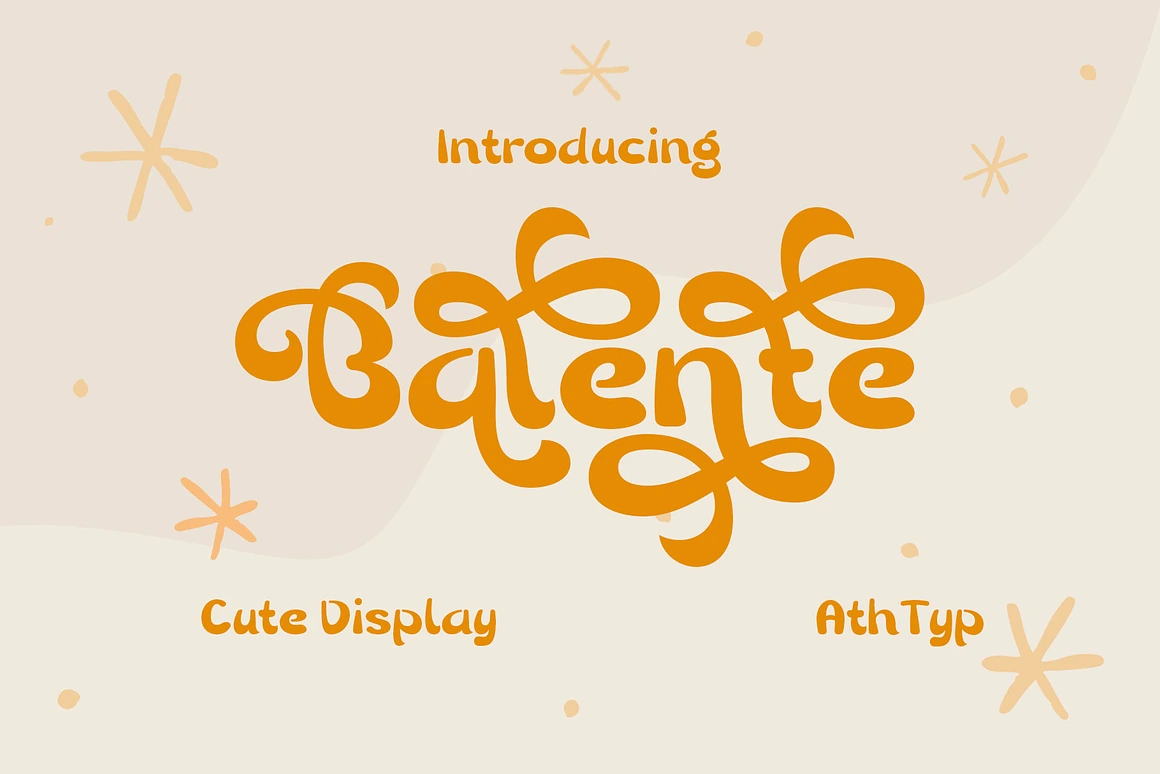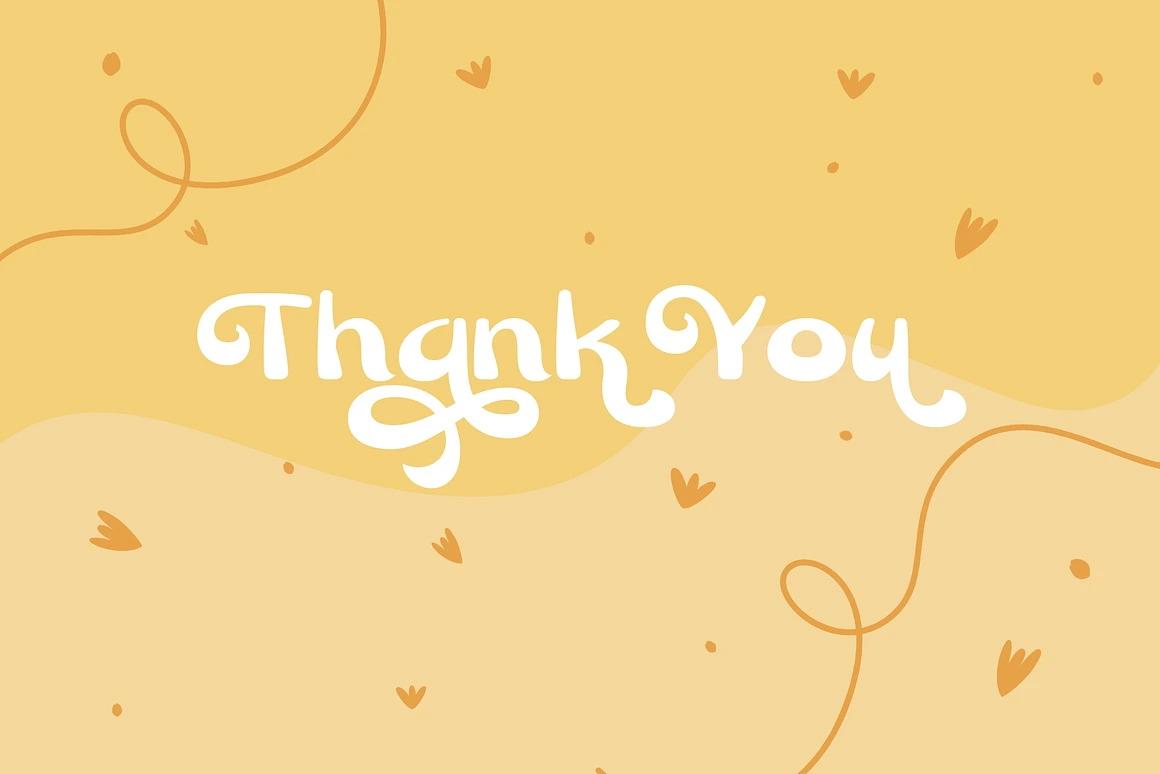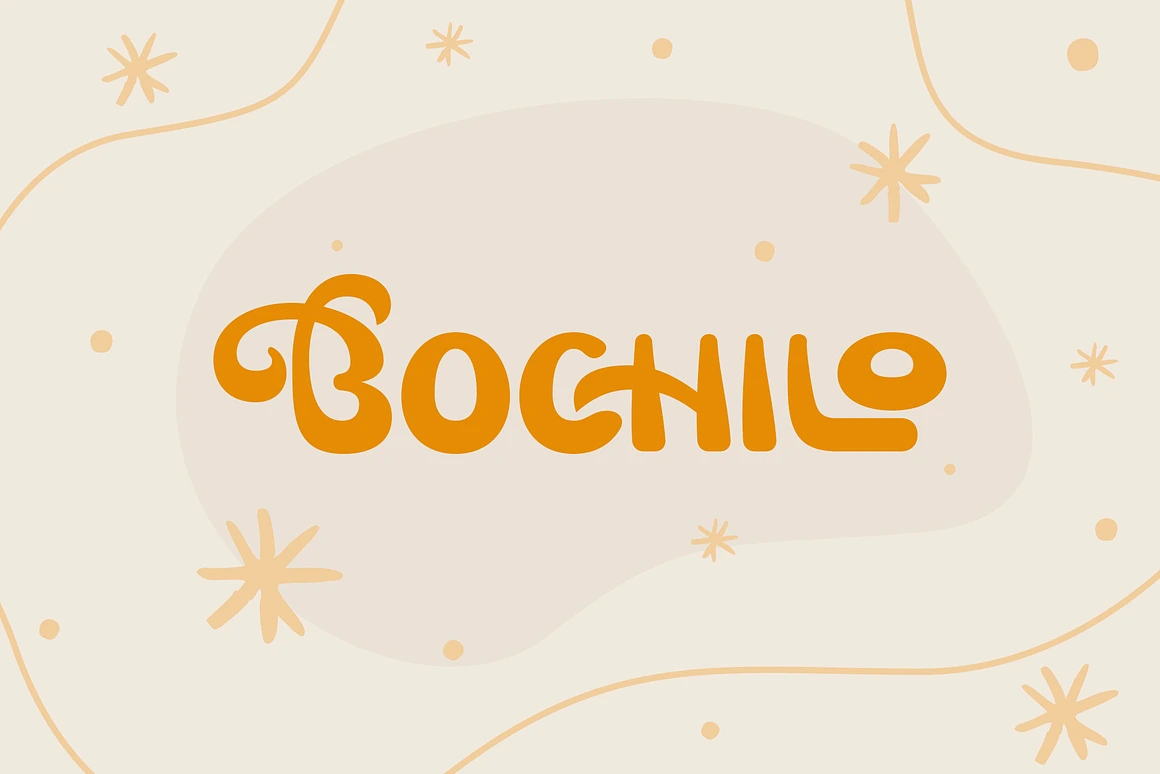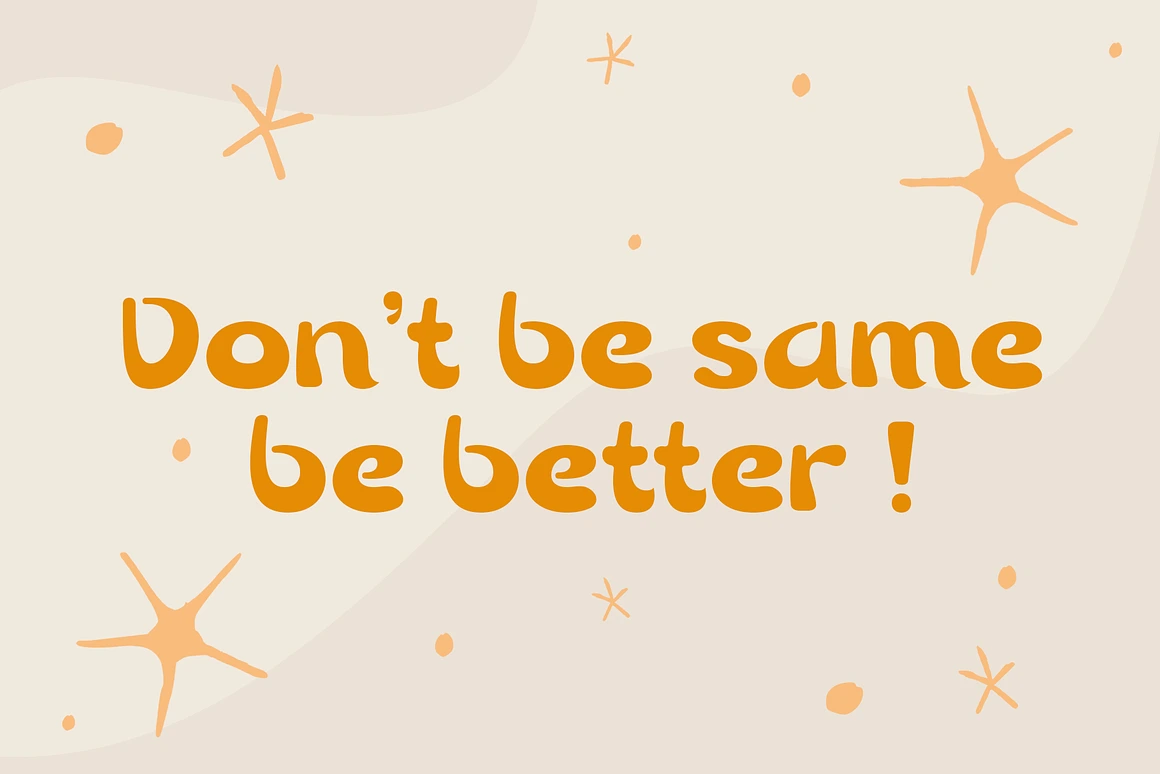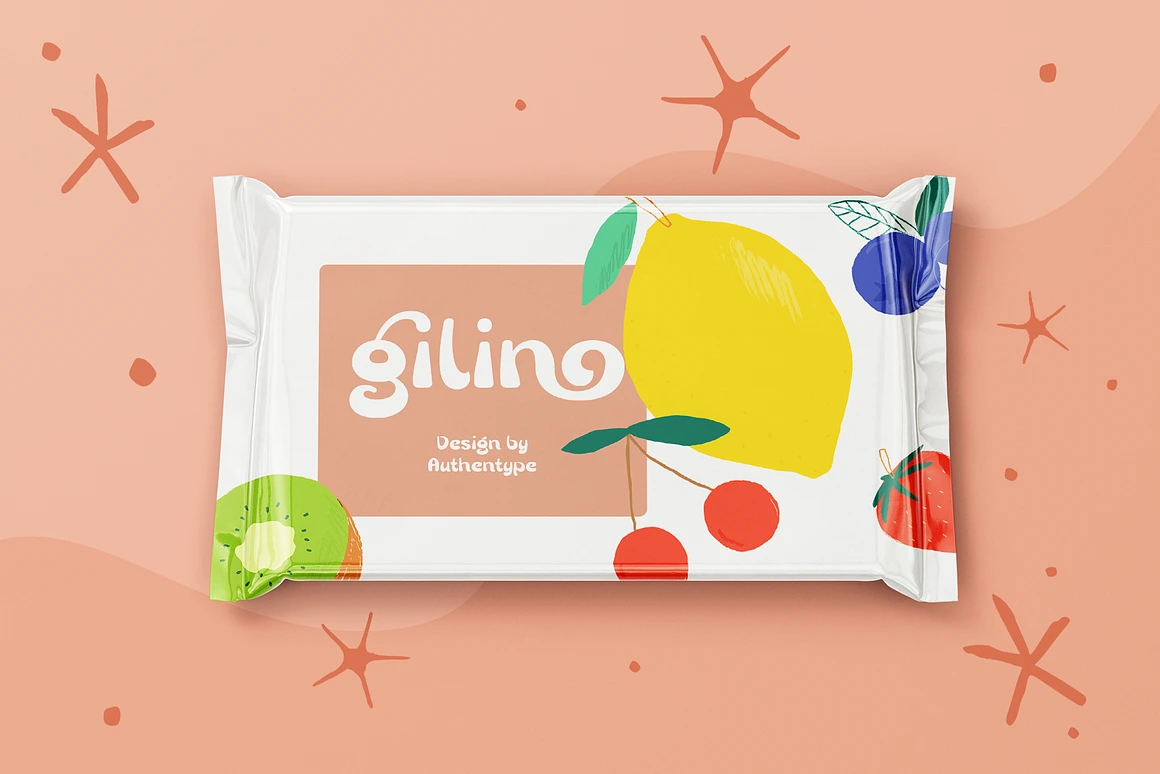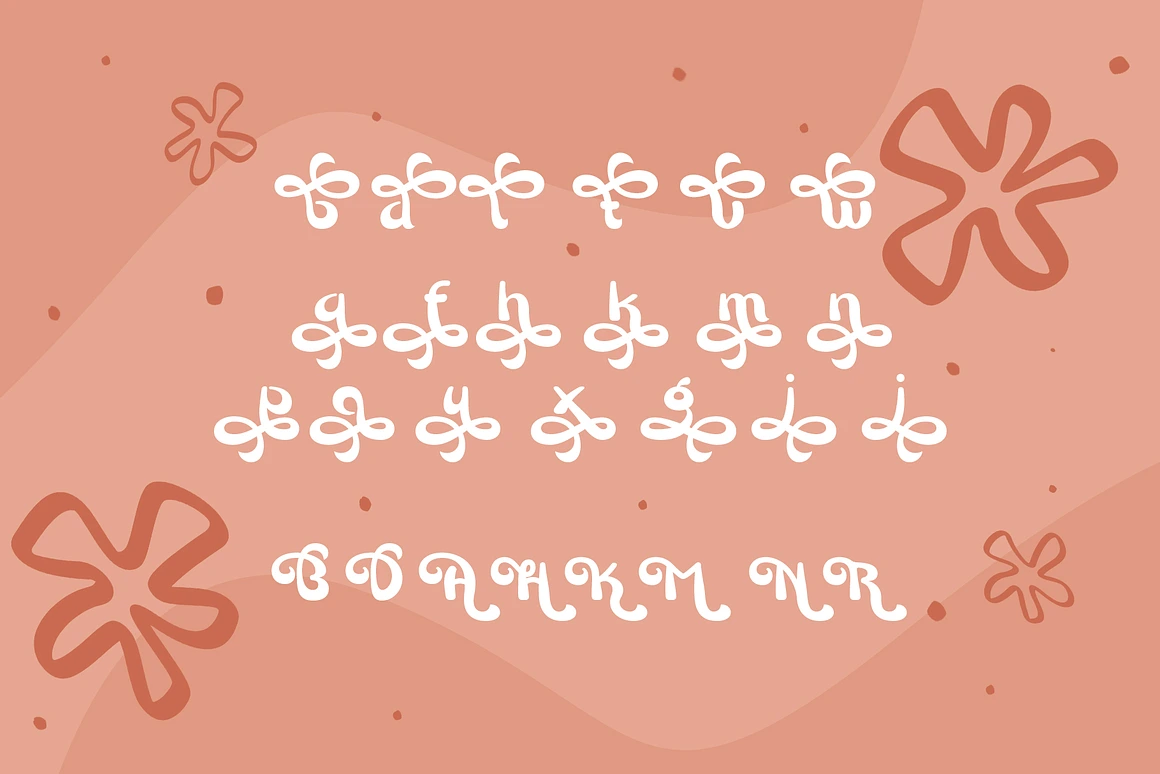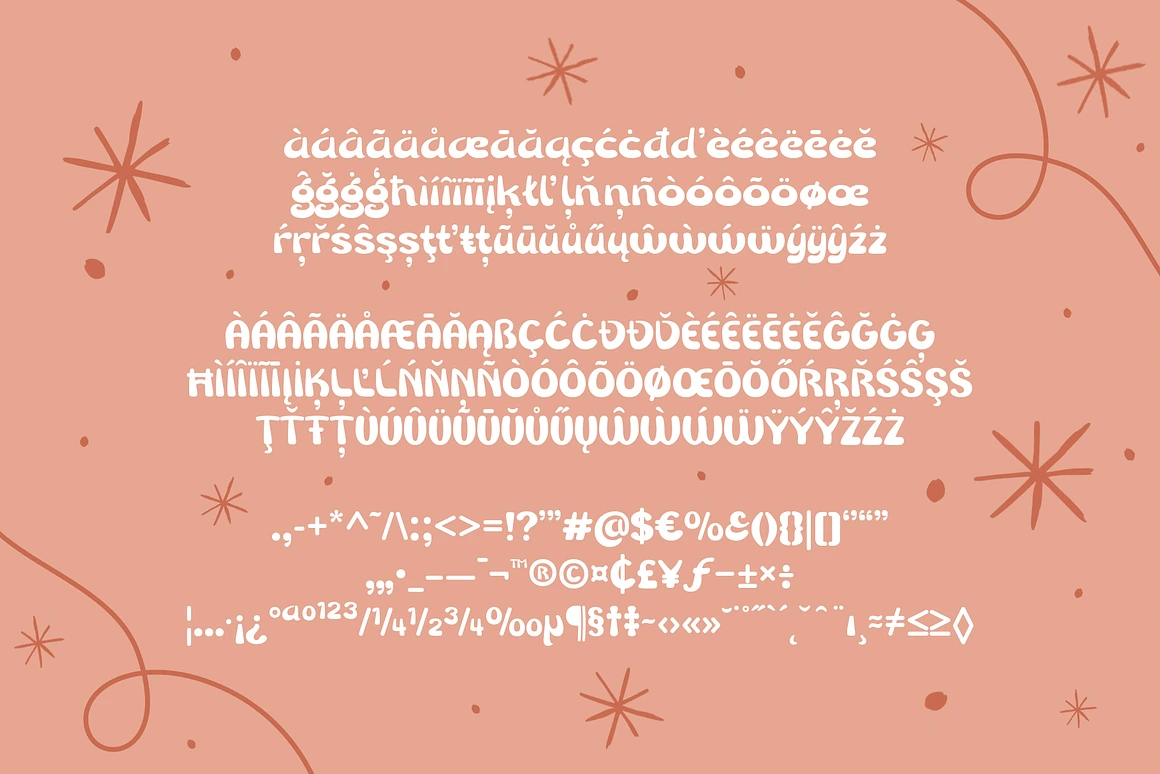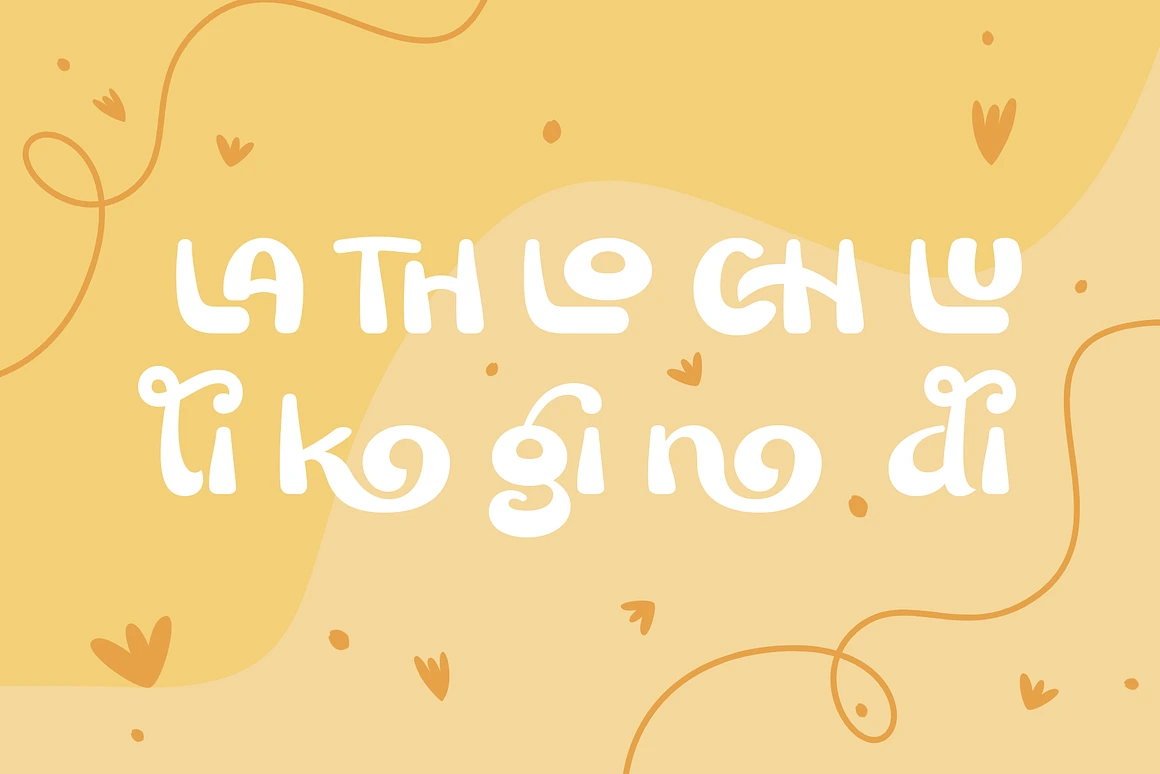
Balente Font Beautiful and Cute
Balente contains 1 style.
Balente, a captivating display font that effortlessly embodies a beautiful and cute nuance. With its delicate curves and charming details, Balente adds a touch of elegance to any design project. The font’s graceful letterforms capture attention and evoke a sense of whimsy, making it an ideal choice for creative endeavors that require a touch of playfulness. Whether you’re designing greeting cards, branding materials, or children’s books, Balente is sure to bring a delightful and enchanting vibe to your creations.
Balente is carefully crafted with meticulous attention to detail, ensuring each character exudes a unique and endearing charm. The smooth lines and graceful strokes of this font create a harmonious balance, making it a versatile choice for both headline and body text. Its versatility is further enhanced by a wide range of glyphs and ligatures, allowing you to explore endless design possibilities and create truly personalized compositions. The font’s inherent cuteness and beauty are sure to captivate your audience and leave a lasting impression.
With Balente, you can effortlessly infuse your designs with a dash of magic and sophistication. Whether you’re crafting invitations, product packaging, or social media graphics, this font will help you achieve a captivating and memorable look. Embrace the beauty and cute nuance of Balente, and watch as your designs come to life with a delightful and enchanting charm.